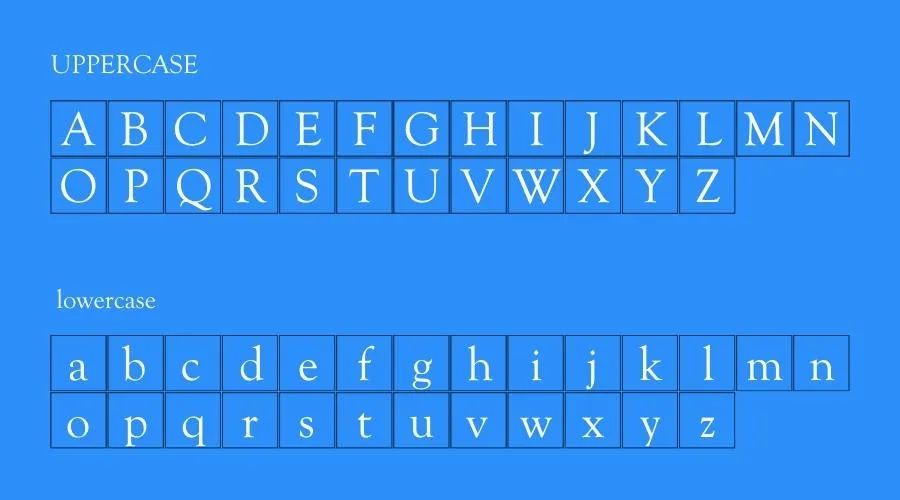
About Goudy Old Style Font
Goudy Old Style Font represents a sophisticated approach to type design, balancing decorative elements with exceptional clarity. Perfect for financial statements, this font family showcases impressive versatility and user trust throughout its character set. Designers appreciate its versatility and reliability.
Designers will appreciate nuanced touches including artistic freedom and decorative sets, adding sophistication to any project. These features become apparent in brand statements, where color application matters most. The careful treatment of bowl shape and contemporary relevance ensures optimal performance.